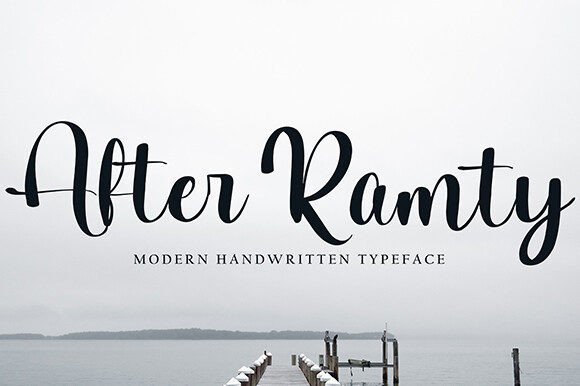
Unleash your creativity with After Ramty, the captivating script font that transforms your words into a thing of beauty. Step into a world of elegance and sophistication as you explore the endless possibilities of this magical font. Whether you're a passionate designer, an ambitious blogger, or a creative entrepreneur, After Ramty is your perfect companion to elevate your projects to new heights.
With its graceful curves and enchanting flow, After Ramty brings a touch of magic to your designs. Each letter dances across the page, creating a visual symphony that captures the attention and captivates the imagination. Let your words take center stage as they become true masterpieces, adorned with the beauty of After Ramty.
Dive into a world of versatility with After Ramty, the font that adapts seamlessly to your creative vision. Whether you're crafting stunning logos, captivating social media posts, or heartfelt invitations, After Ramty effortlessly complements your style. Its ability to blend seamlessly into any project makes it the perfect choice for designers of all levels, allowing you to unleash your creativity without limits.
With After Ramty, the possibilities are endless. Whether you're designing eye-catching graphics for your online store, creating personalized wedding invitations, or adding a touch of elegance to your social media content, this font will effortlessly elevate your work. Let your imagination soar and watch as After Ramty transforms your creative ideas into breathtaking realities.
Step into the realm of After Ramty and unlock the gateway to extraordinary design. Experience the magic of this enchanting script font as it breathes life into your words and transforms your creative projects into captivating masterpieces. Elevate your designs, captivate your audience, and leave a lasting impression with After Ramty, the font that will ignite your creativity like never before.